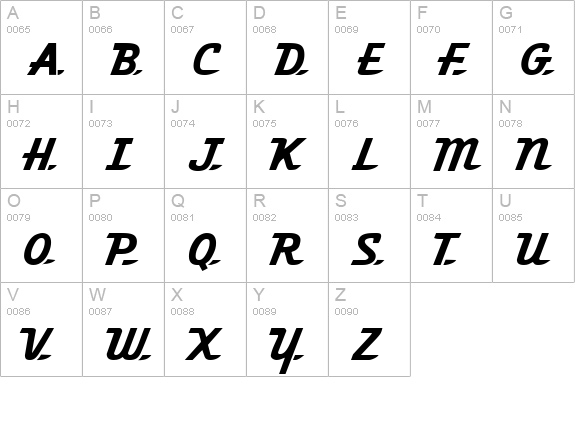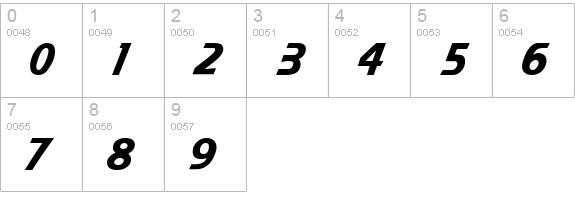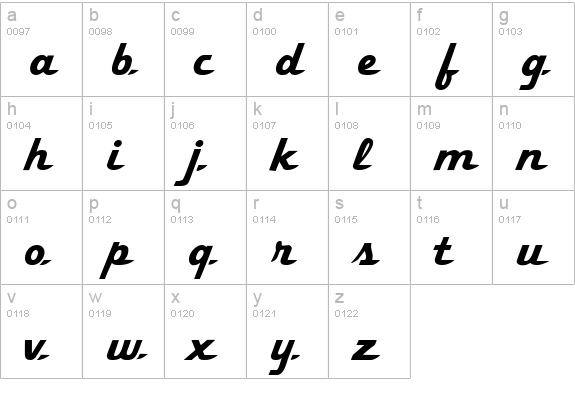
Ol' 54 Font Details
Ol' 54 font exudes a timeless charm and vintage appeal that harks back to the classic typography of yesteryears. Its bold and distinctive strokes lend a touch of nostalgia to any design project, making it a versatile choice for both digital and print applications. With its retro-inspired aesthetic and elegant curves, Ol' 54 font adds a touch of sophistication and character to any text or headline. Best of all, Ol' 54 font is available for free download at FontsMarket.com. This means that you can easily access this one-of-a-kind typeface and incorporate its unique style into your creative endeavors without any cost. Whether you're designing a poster, creating a logo, or crafting a vintage-inspired website, Ol' 54 font is sure to elevate your work and make a lasting impression on your audience. Embrace the timeless beauty of Ol' 54 font and bring a touch of vintage flair to your designs today.